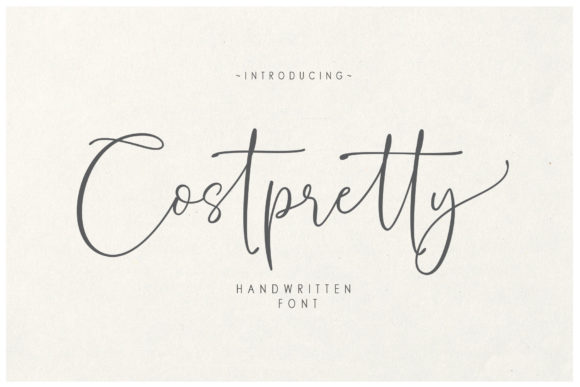
Journey into the realm of enigmatic charm with Costpretty Font, a masterpiece crafted by the renowned moriztype.
Indulge in the allure of Costpretty Font's delicate strokes and flowing curves, reminiscent of a graceful quill pen. Its thin and elegant handwritten design evokes an irresistible allure that captivates the senses.
Unleash your creativity and let this font cast its magic upon any design that craves a touch of enchantment. From personal signatures that ooze sophistication to heartfelt invitations that whisper sweet nothings, Costpretty Font is your trusted companion.
Dive into a world of endless possibilities. With Costpretty Font, you'll effortlessly craft designs that exude elegance, making a lasting impression on all who behold them.
Let your imagination soar as you embrace the beauty of Costpretty Font. Its PUA encoding grants you the power to access every glyph and swash with effortless ease, ensuring your designs are as unique and captivating as your dreams.
Embark on a journey of unbridled creativity with Costpretty Font. Its ethereal charm and limitless versatility will transform your designs into works of art that resonate with the soul.